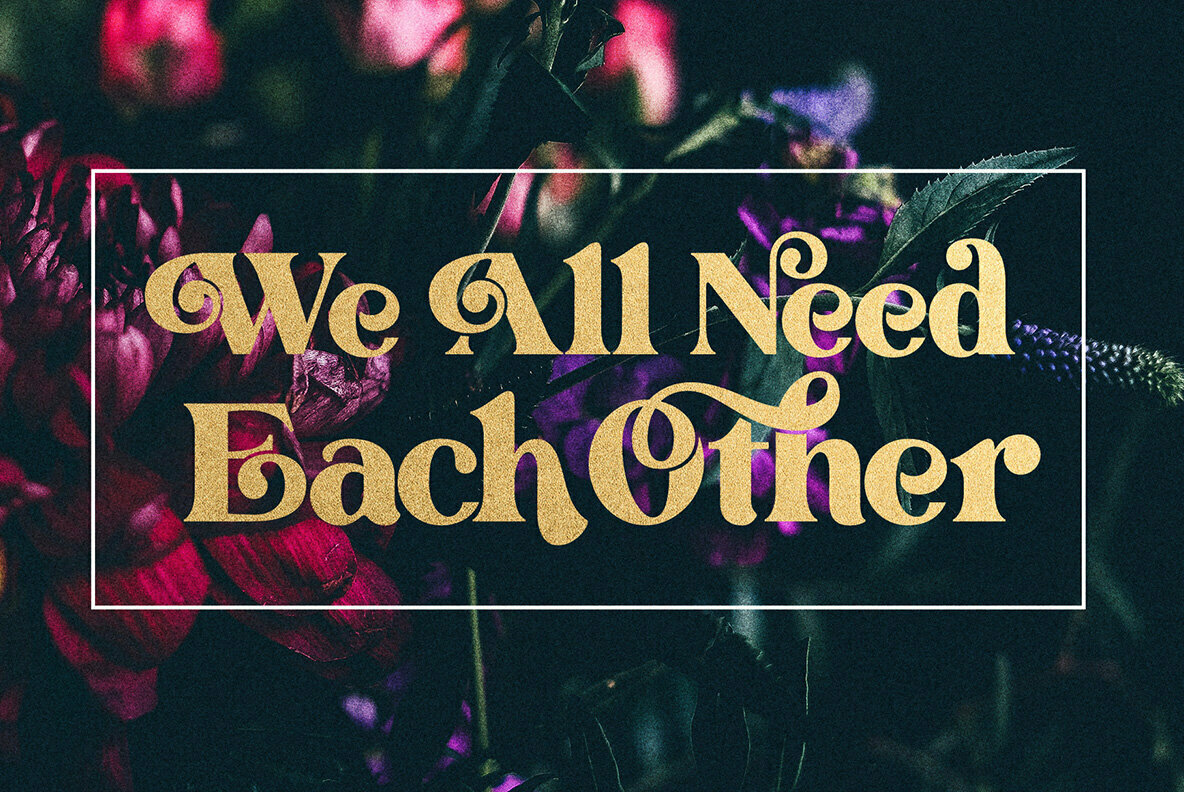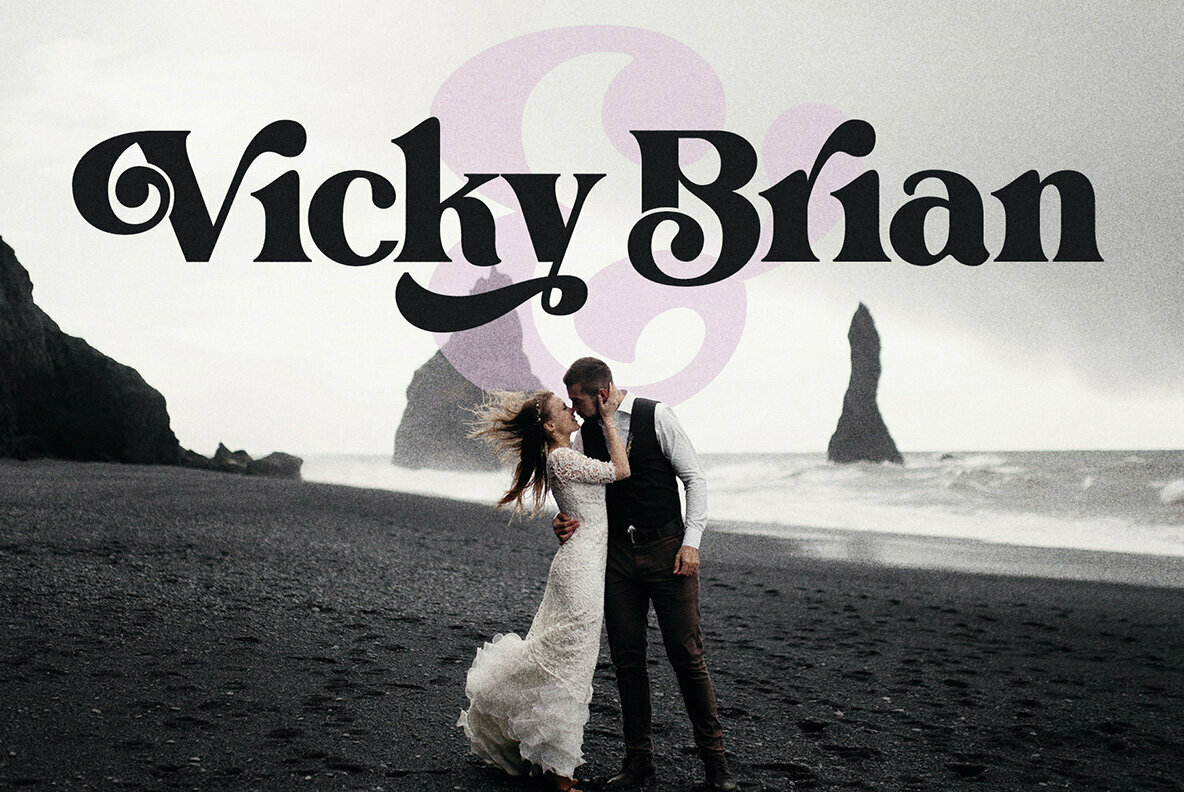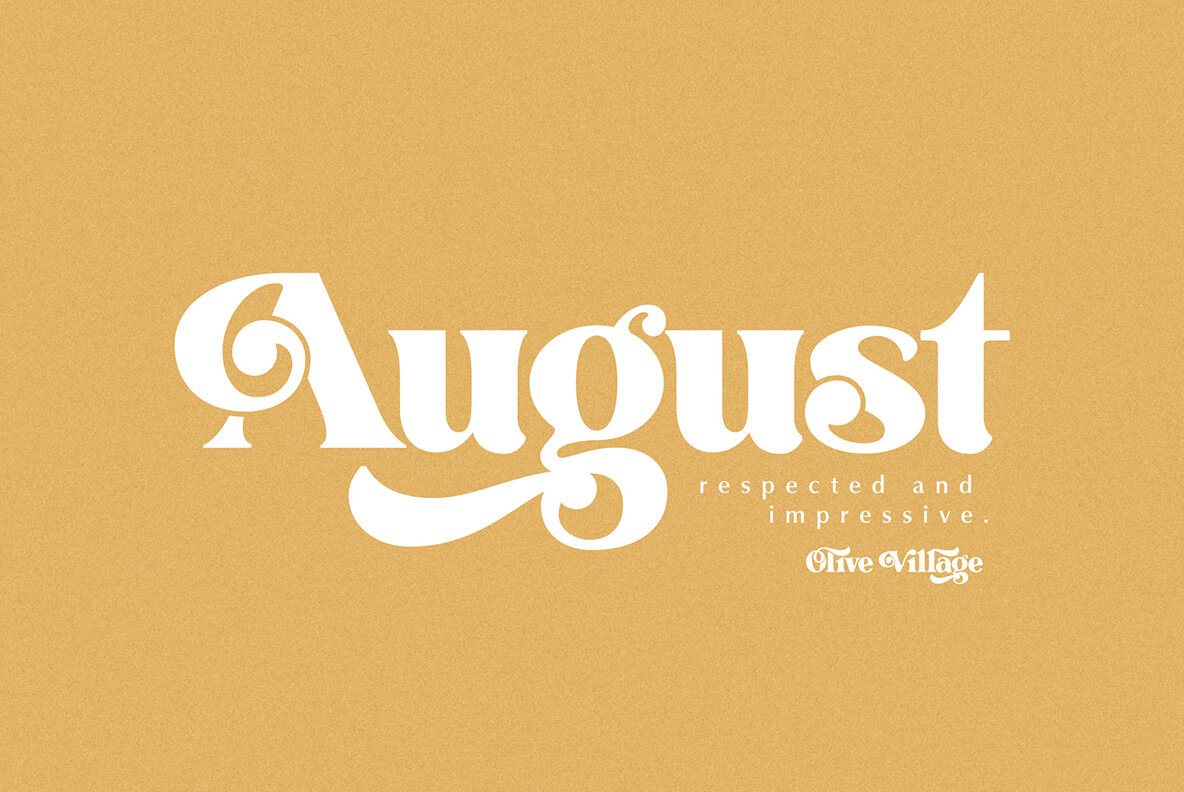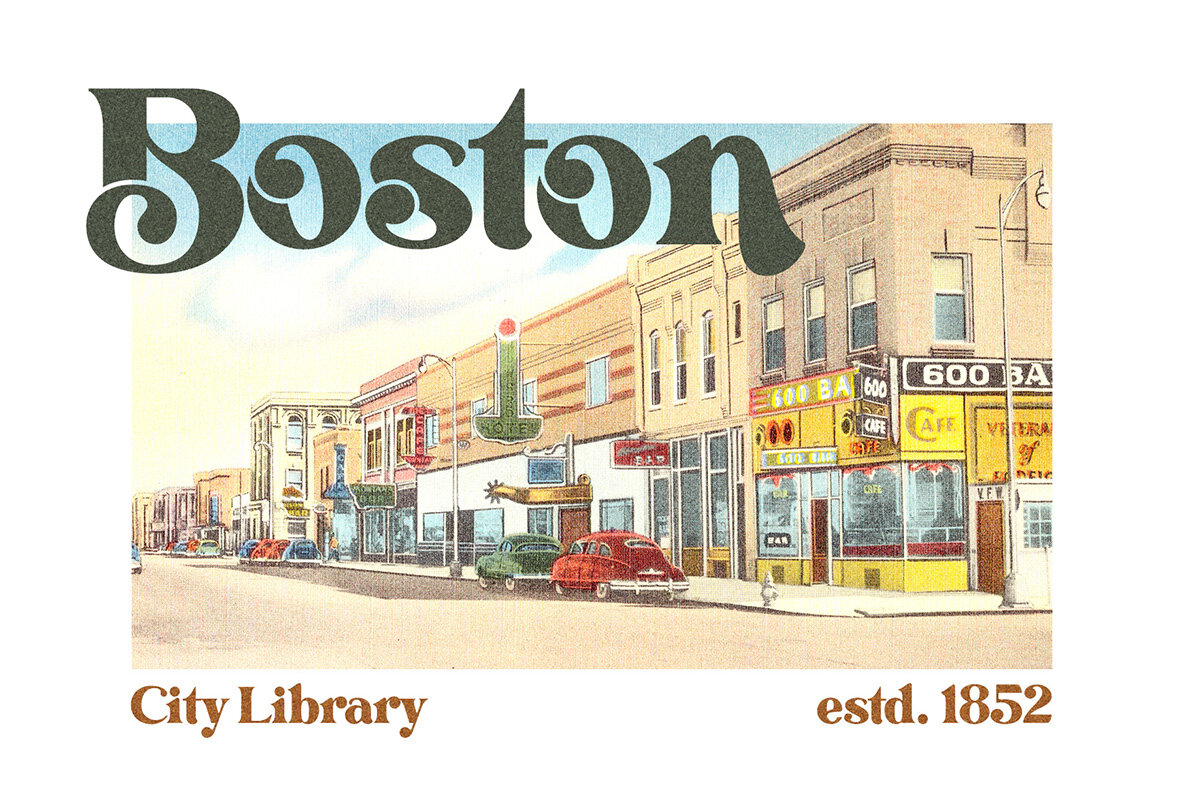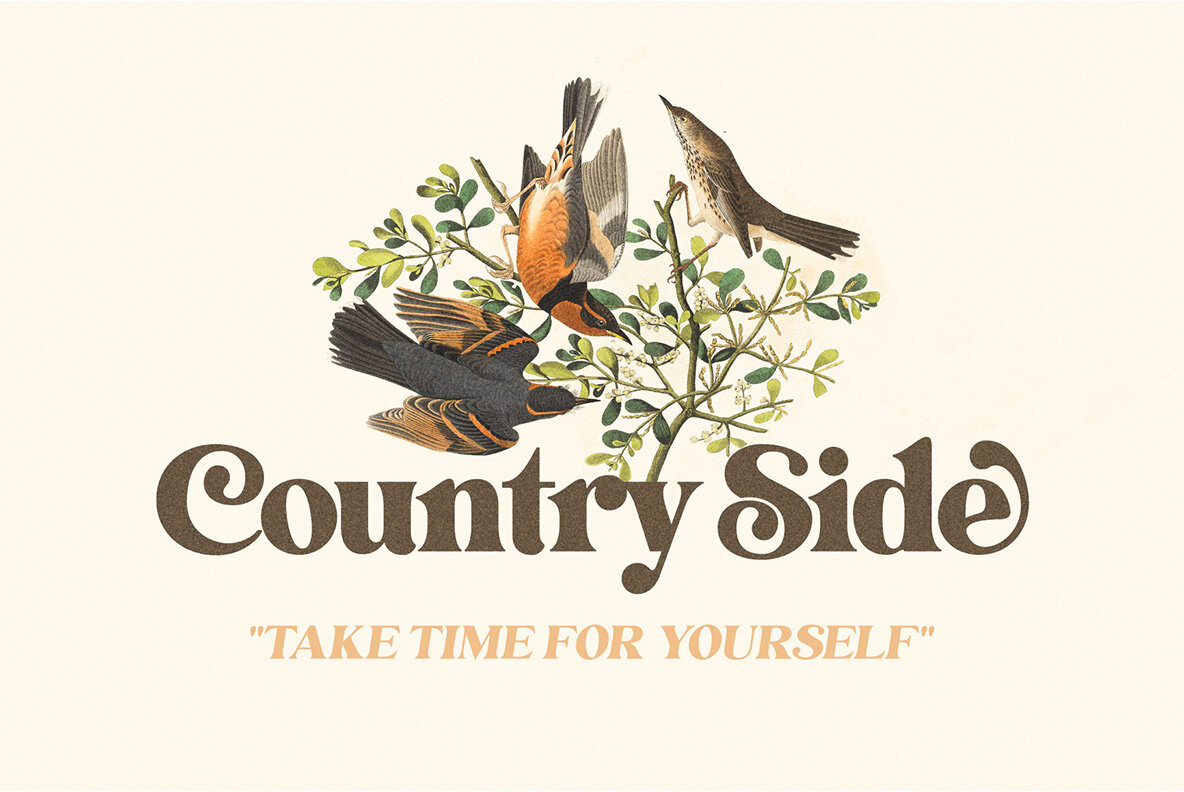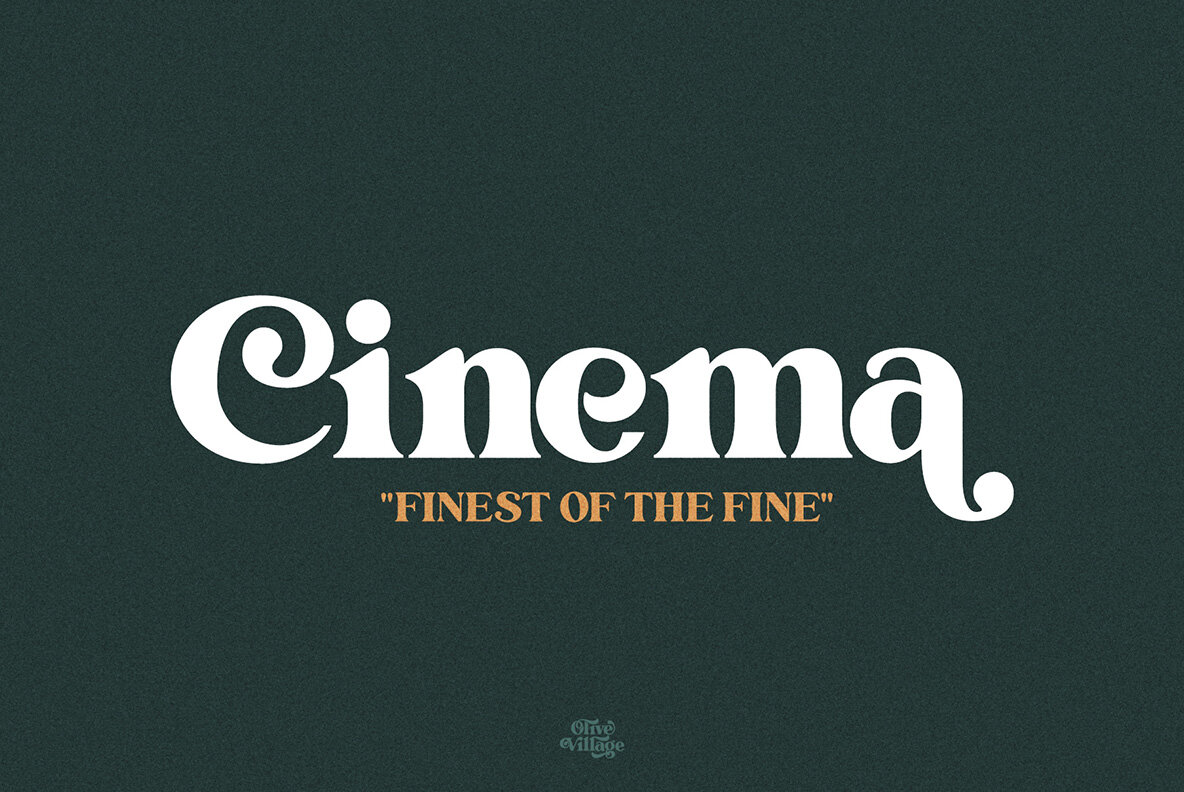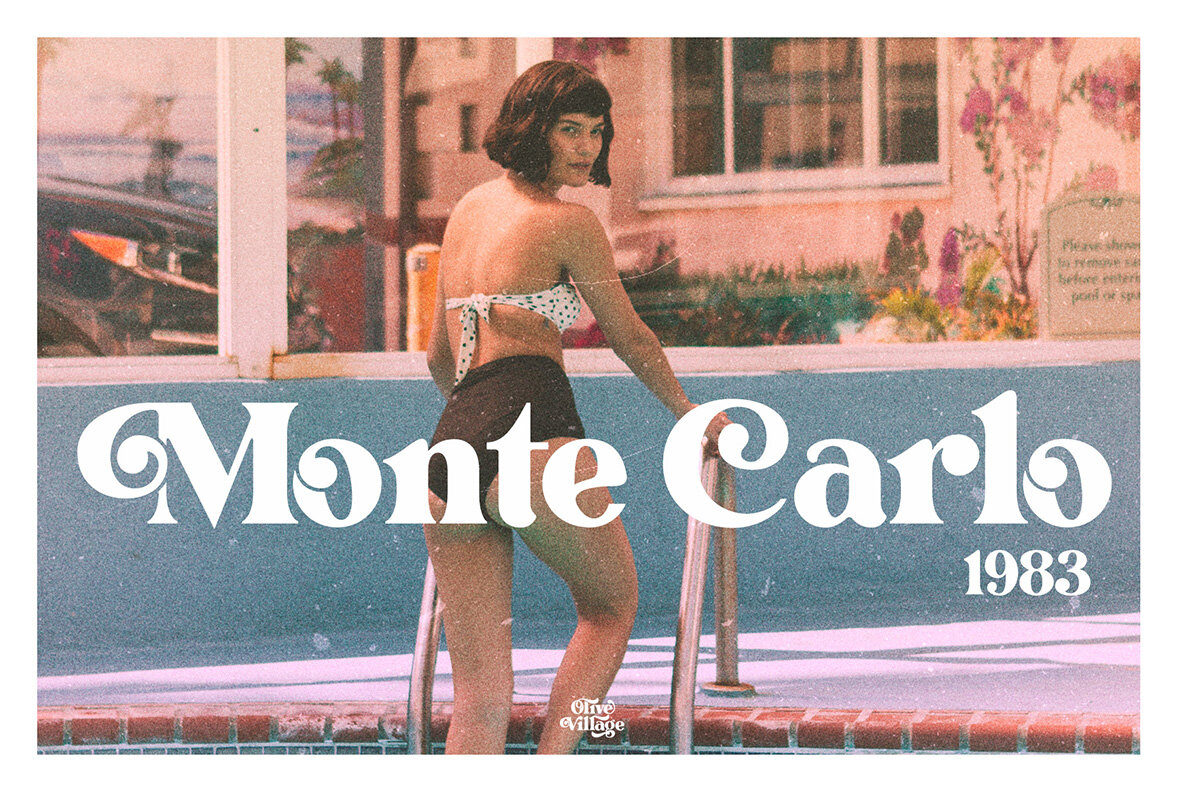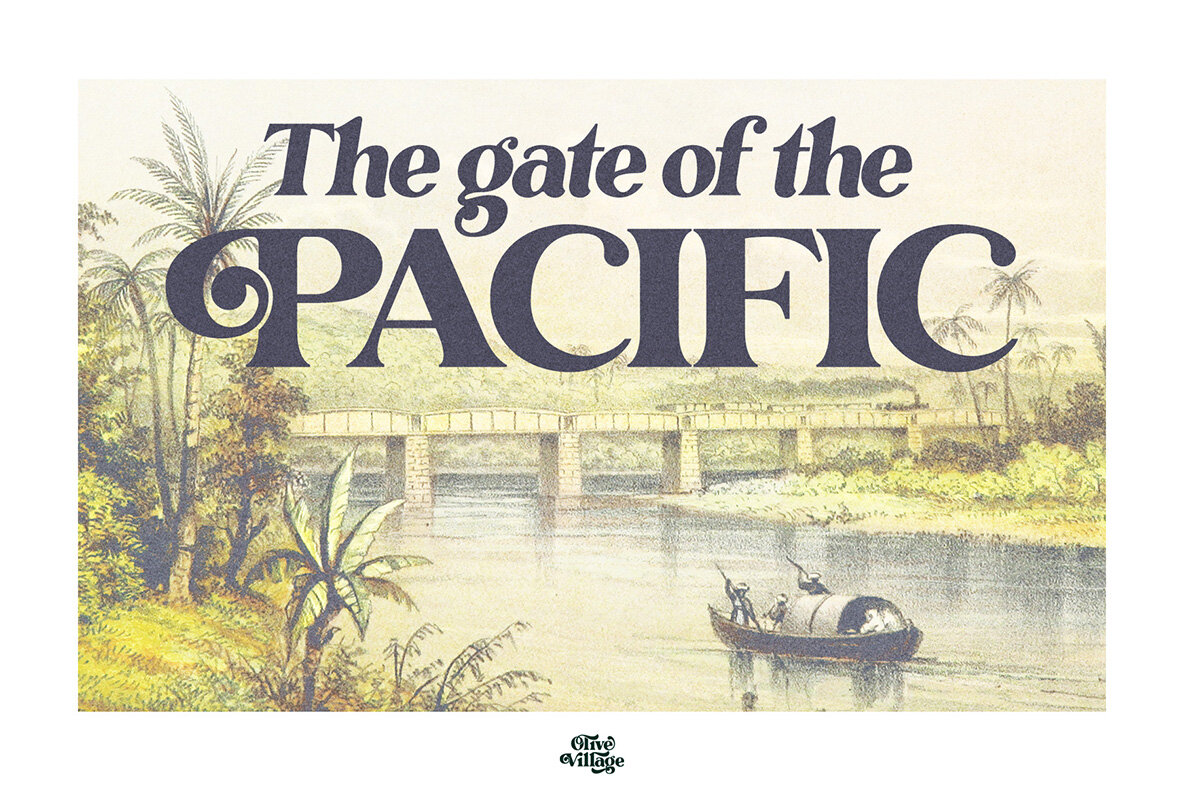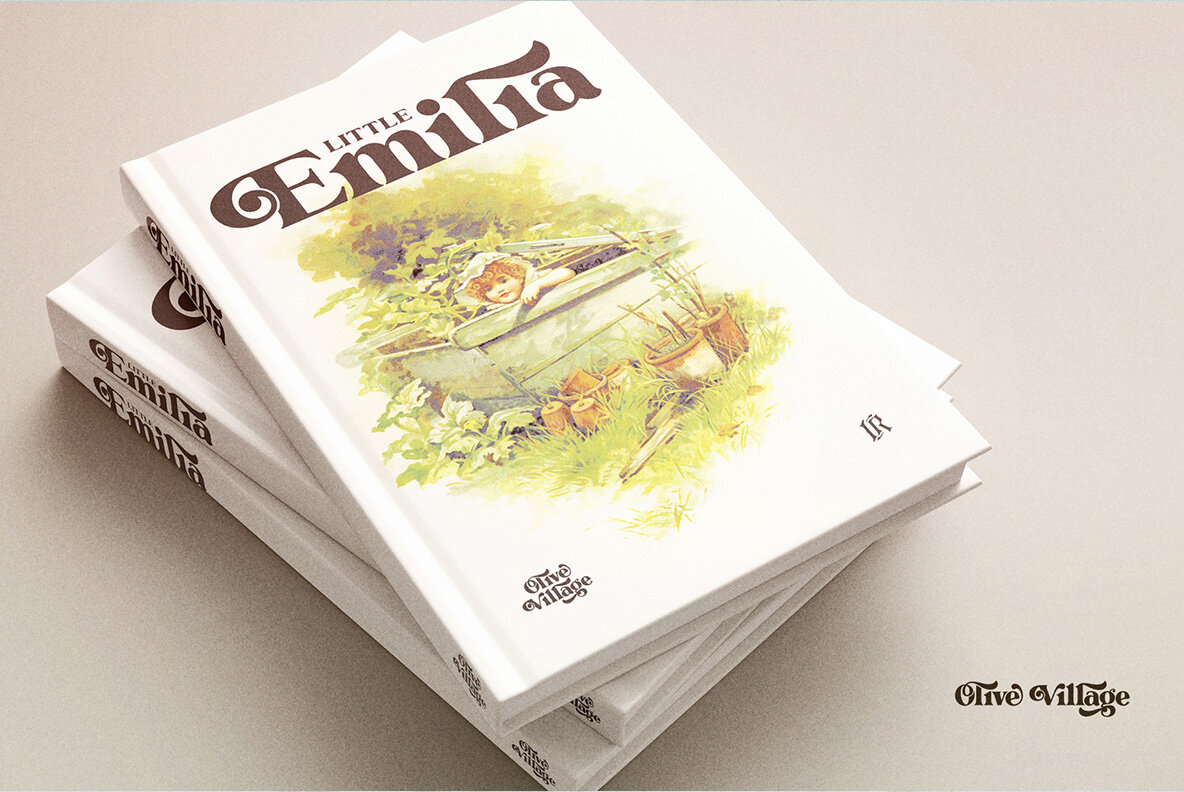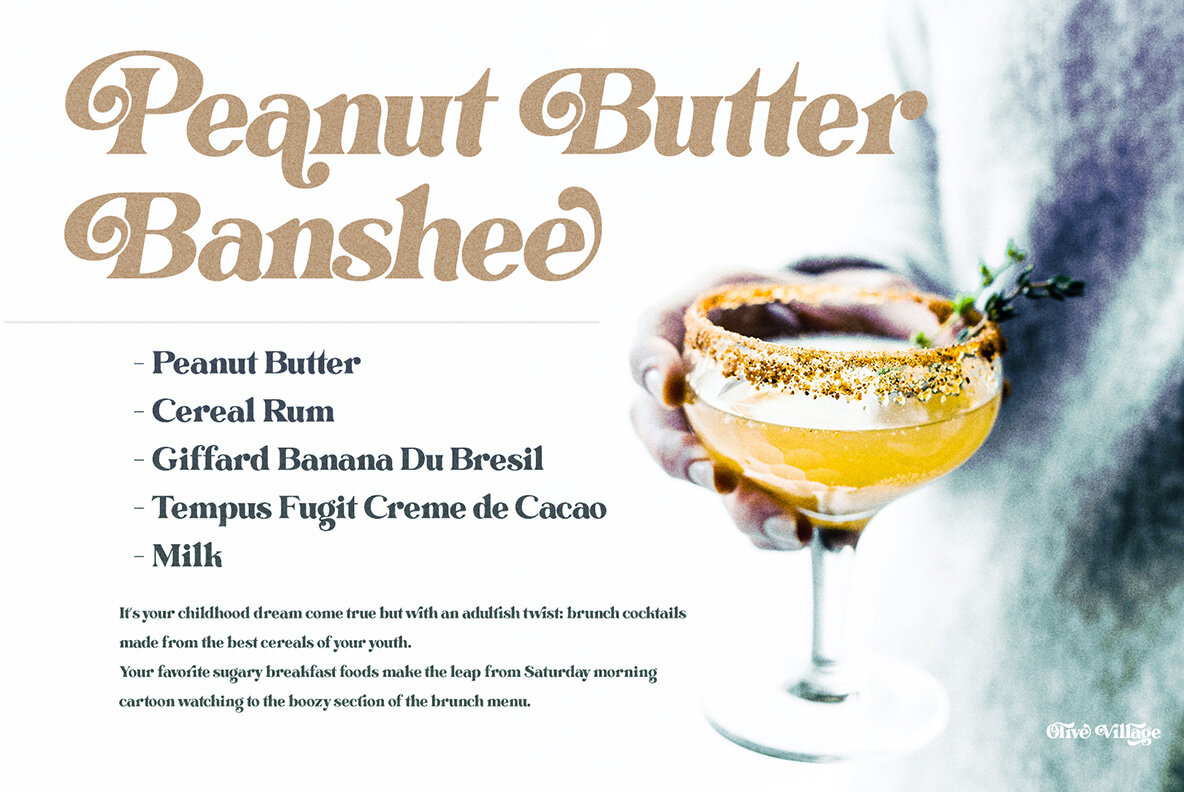
Olive Village Font
Inspired by the groovy vibes of the 1970s, Olive Village brings a touch of modernity to its stylish, vintage appeal. This font shines at display sizes, ensuring captivating headlines, while remaining easily legible in smaller text. With two versatile versions, Regular and Italic, it extends its utility across a wide array of design projects.Olive Village: A Stylish Vintage Display Font
Olive Village is an excellent choice for those seeking a vintage yet contemporary look, seamlessly bridging modern and nostalgic design themes.